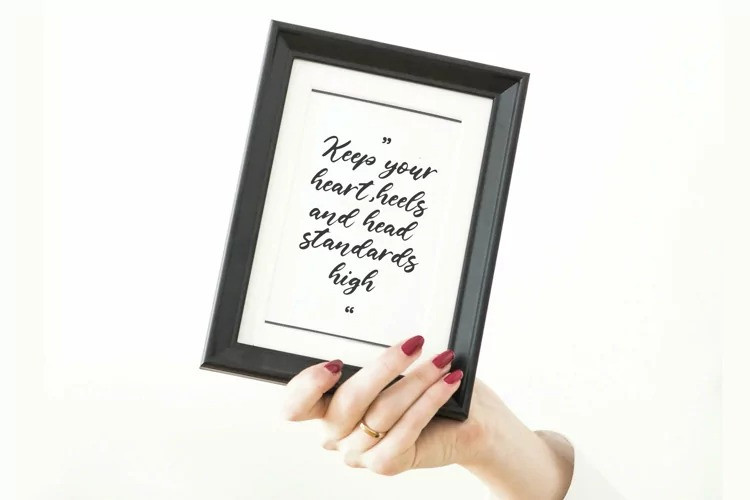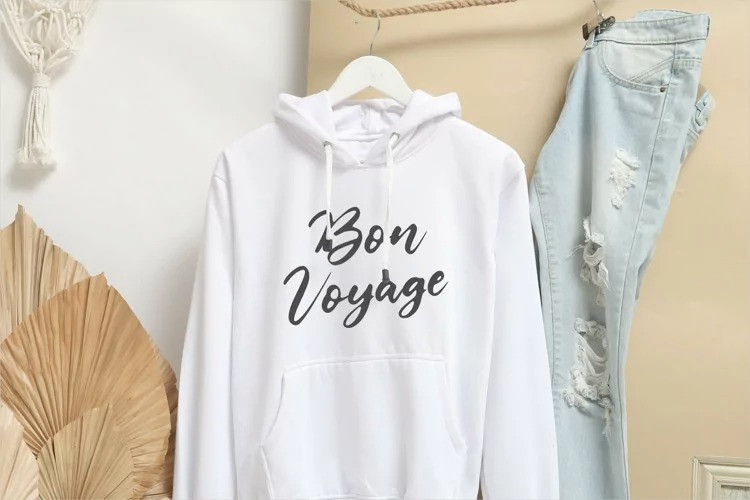
Blueberry Handwritten Font
Introducing Blueberry Script! A bouncy, hand lettered brush script font with lots of personality.
Blueberry Script contains multilingual support with accented characters for international users.